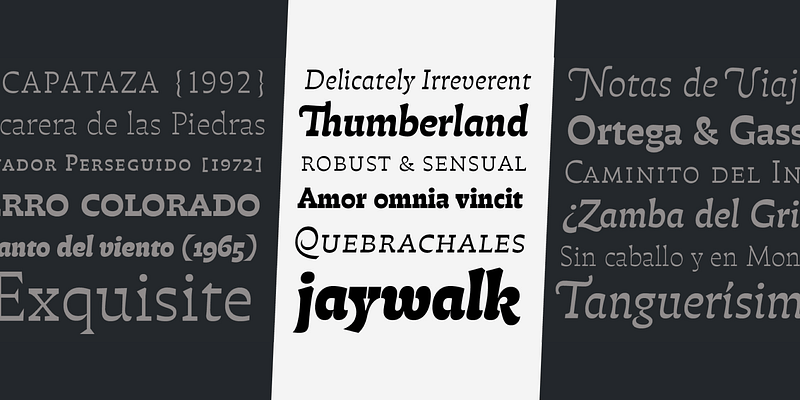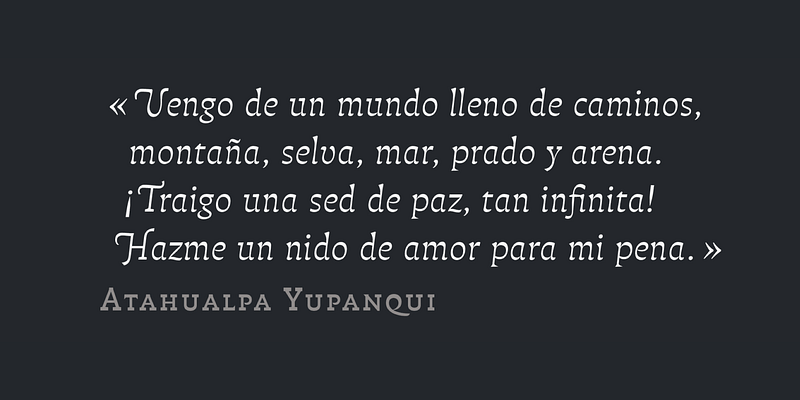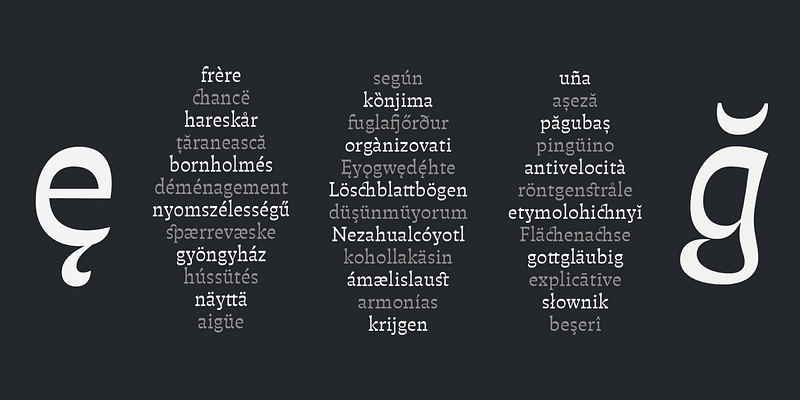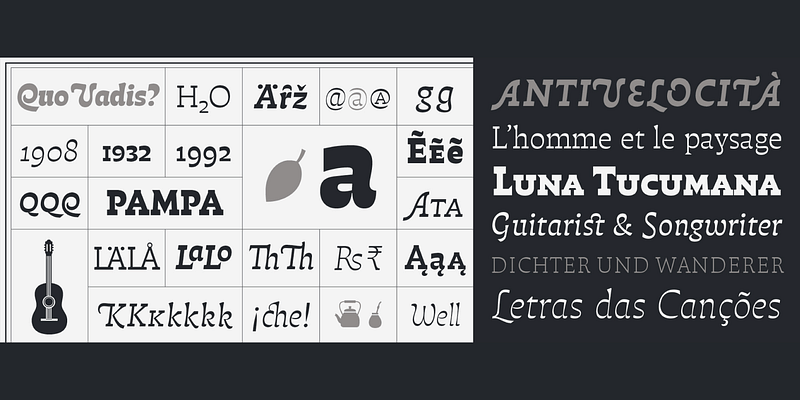
Inspired by the works of Atahualpa Yupanqui, a central figure in Argentinean folk music, Atahualpa goes beyond reverse contrast, interpreting the qualities of a sturdy slab serif style with a delicate sense of drawing. This gives Atahualpa a unique spirit of power and warmth, perfectly creating gentle reading atmospheres in text as well as persuasive headings, logos, and other displays.
PampaType
Being the first and most experienced independent font foundry from South America, PampaType was founded in 2001 in Argentina by Alejandro Lo Celso, with the purpose of developing high quality typefaces for the widest range of uses, engaging in both retail & bespoke font industries.
Since then their passion and work, which pioneered the Latin American type design scene, have become widely known and appreciated. Their typefaces have been broadly recognized for their quality and originality, and their team have become more international and more experienced. They believe in the idea of diversity. It is not unusual that PampaType families include various styles, some of them meant for immersive reading, some others for titling or decorative use. Their fonts are carefully handcrafted. They pay serious attention to details so characters look good both printed and on screen. Spacing and kerning are made by hand following visual strategies rather than mathematical methods. Therefore instead of feeling mechanical, their fonts build an organic rhythm, aiming at a friendly atmosphere and comfortable reading.